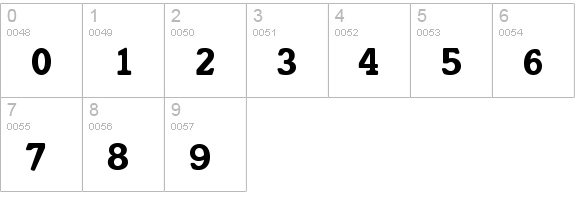
ItaliaEF-Bold Font Details
ItaliaEF-Bold is a strong, high-contrast variant in the ItaliaEF typeface family \xE2\x80\x94 well suited to headlines, attention-grabbing titles, and strong calls-to-action.
ItaliaEF-Bold is a stunning and versatile font that radiates elegance and sophistication. With its bold and strong letterforms, this typeface commands attention and adds a touch of professionalism to any design project. This font is perfect for headlines, logos, posters, and any other creative endeavors that require a bold and impactful visual presence. The unique design of ItaliaEF-Bold blends classic elements with a contemporary twist, making it suitable for both traditional and modern designs. One of the standout features of ItaliaEF-Bold is its ability to convey a sense of confidence and authority. The precise curves and clean lines of each letter make for a legible and visually appealing reading experience. What sets ItaliaEF-Bold apart is that it is not only stunning and versatile but also free! Yes, you read that right. This amazing font is freely available to download at FontsMarket.com. It's a fantastic opportunity to enhance your design projects without breaking the bank. Whether you're a professional graphic designer or an aspiring artist, ItaliaEF-Bold is a font that will elevate your work to new heights. Its bold and striking appearance will captivate your audience and leave a lasting impression. Don't miss out on this incredible opportunity to download ItaliaEF-Bold for free at FontsMarket.com. Get ready to take your designs to the next level with this exceptional font that combines timeless elegance with modern flair.